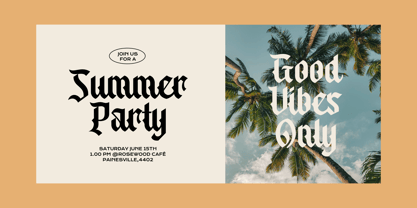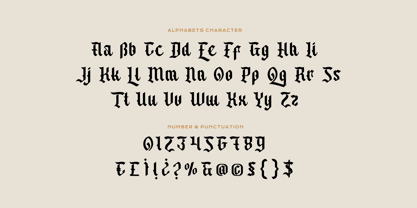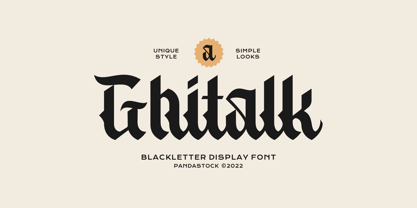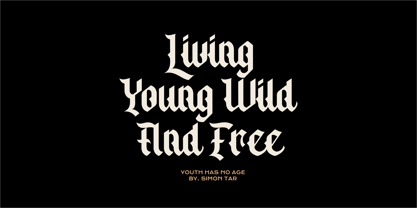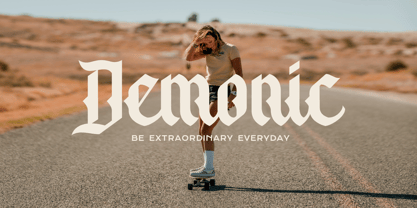
Ghitalk
La familia tipográfica Ghitalk fue diseñada por Aulia Savira Putri y publicada por Imoodev. Ghitalk contiene 1 estilos.
Ghitalk is a modern blackletter display font that combines classic Gothic-inspired letterforms with clean, contemporary shapes.
Ideal for well with edgy branding projects, music album cover, posters, packaging pomades, and design work where you want a fusion of historical script and contemporary style. Suitable for themes related to history, fantasy, classical feel, fantasy, medieval, and mythology.